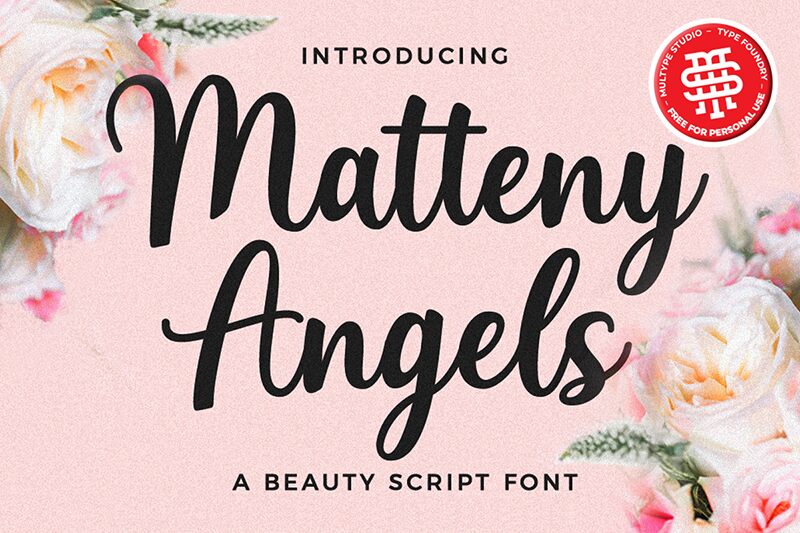
Matteny Angels, a creation of Multype Studio, is a font that dances gracefully across the page with the elegance of calligraphy. Its fluid curves and gentle sweeps capture a timeless sophistication, while each letter harbors a distinct flair, reminiscent of handwritten artistry. The font's charm lies in its delicate balance between ornate beauty and legible design.
In the realm of design, Matteny Angels finds its niche within invitations, branding materials, and editorial work that aim to convey an air of refinement and exclusivity. It adds a personal touch to special announcements or lends an artisanal feel to logos and titles seeking to stand out with understated elegance.